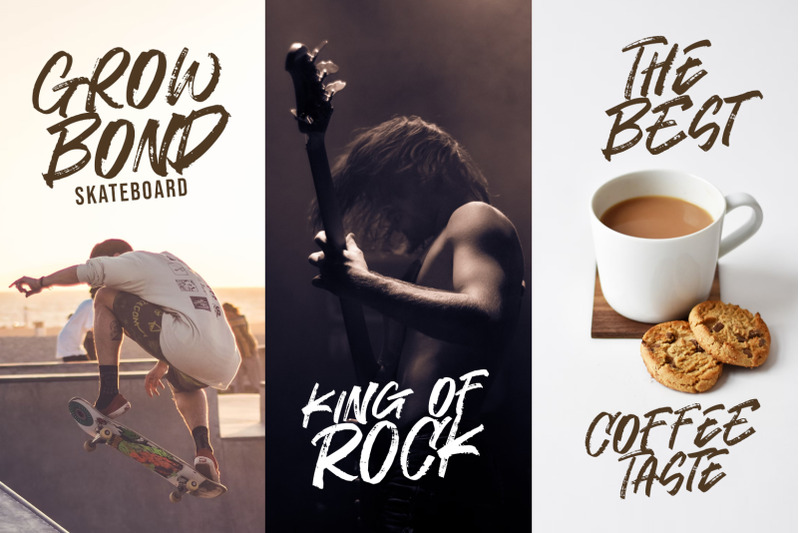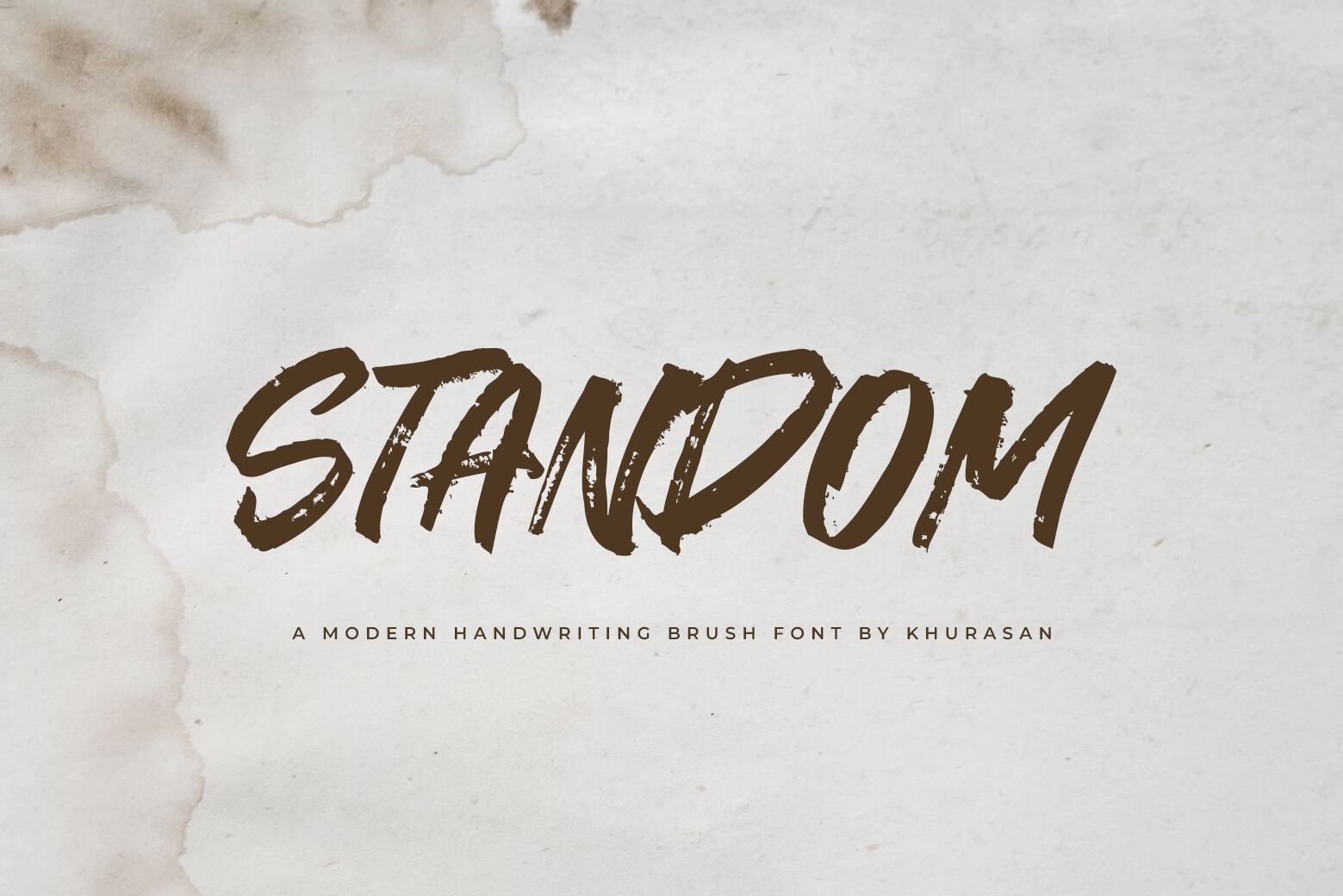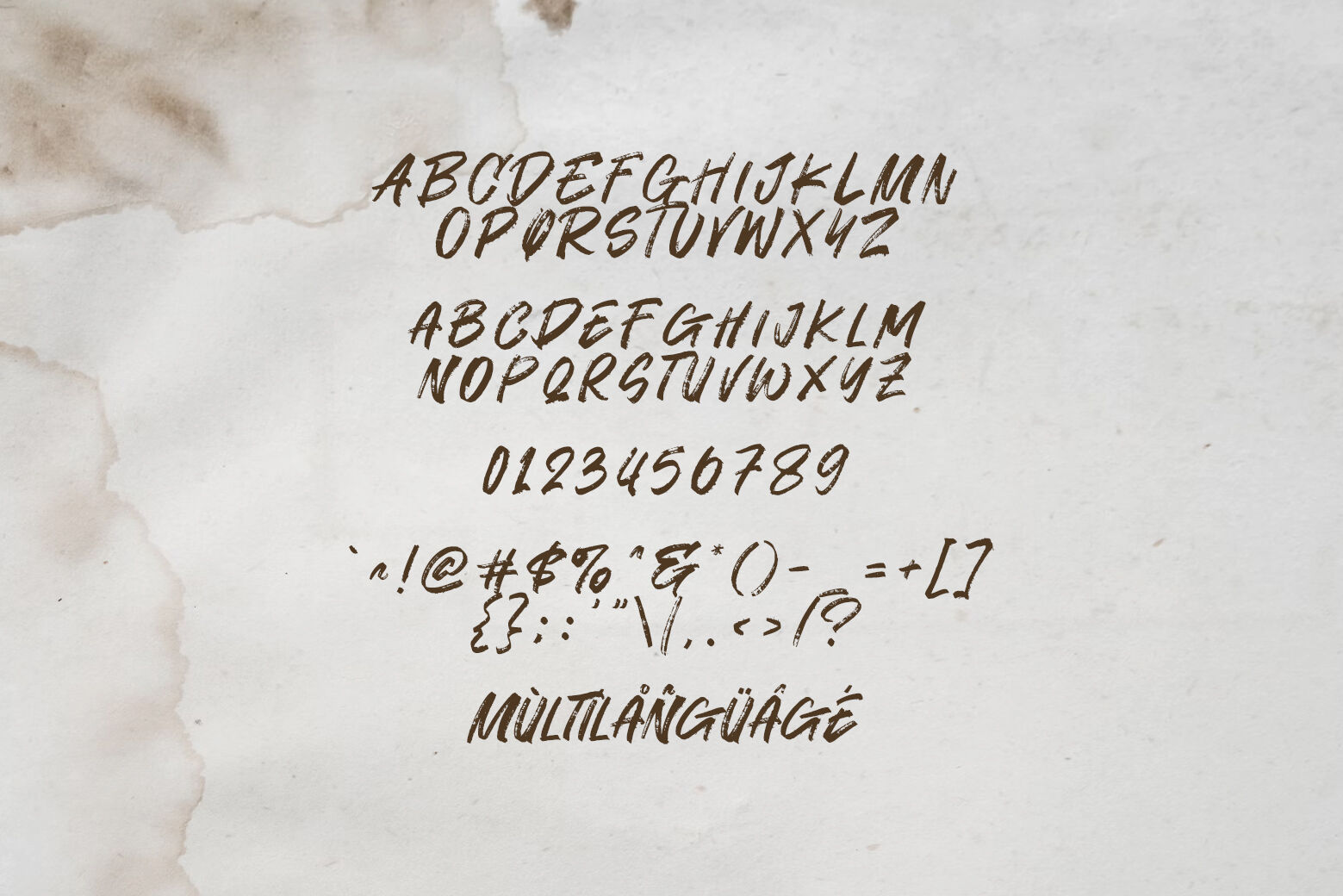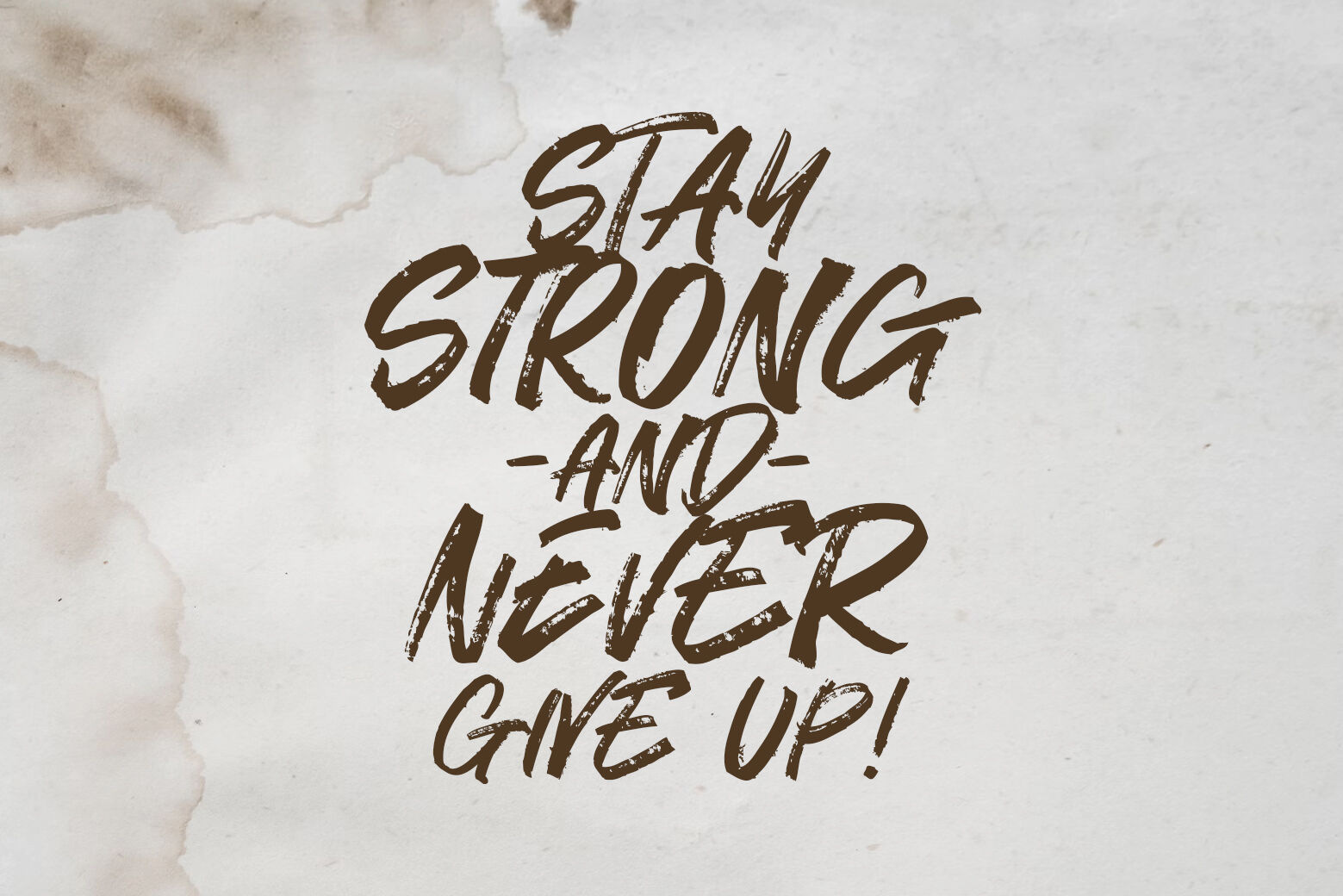
Standom Brush Font
The Standom is a modern brush font, elegant and modern feel character set. The Standom font as well as multi-lingual support, uppercase, lowercase, numerals & punctuation. File Included: Standom.ttf Standom.otf Thank you for checking and i hope you enjoy it. Always put your heart into it and don’t worry to try. I hope you have as much fun using it as i did making it. Khurasan